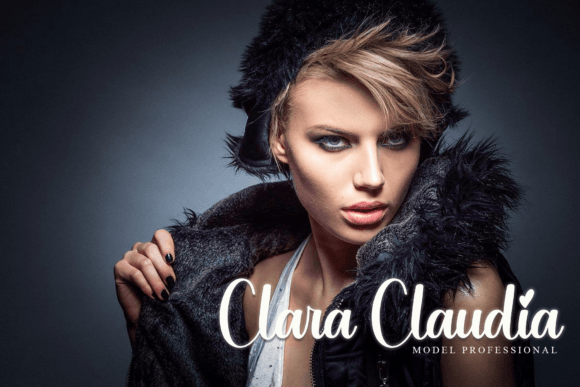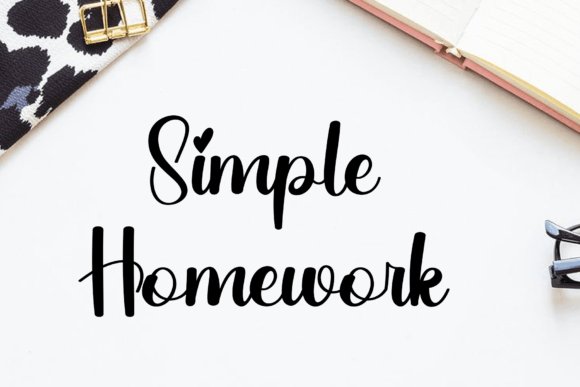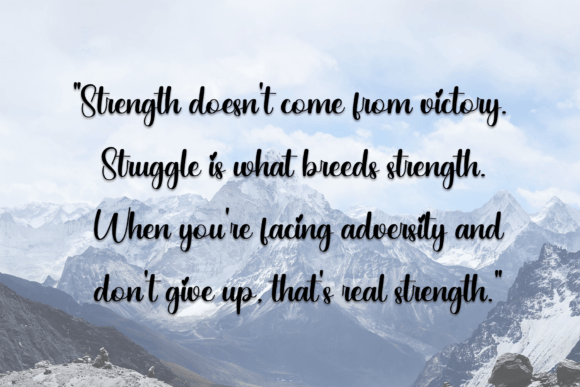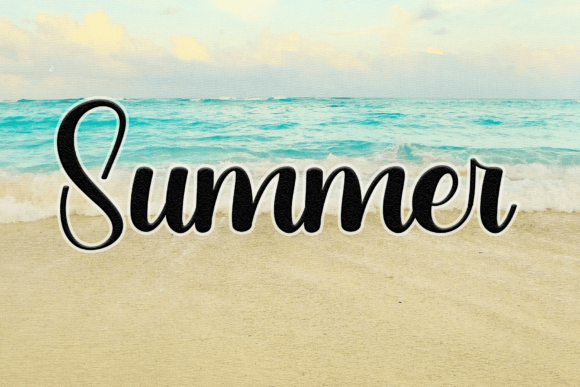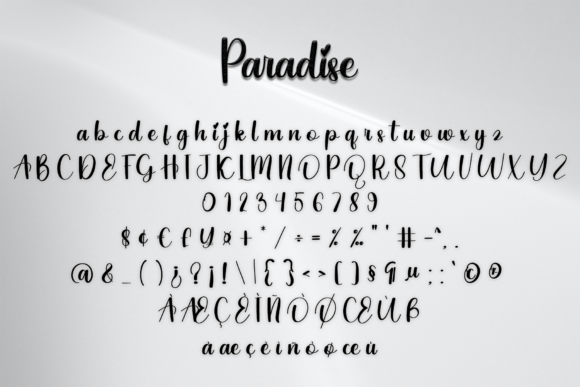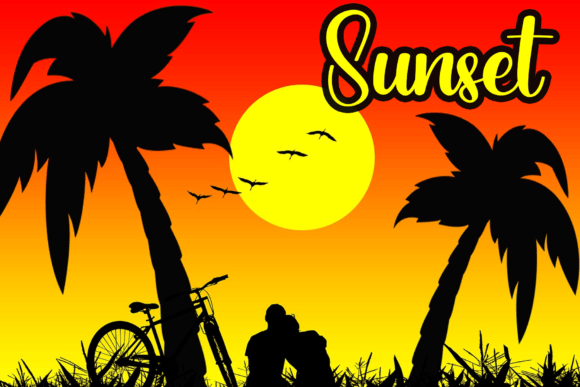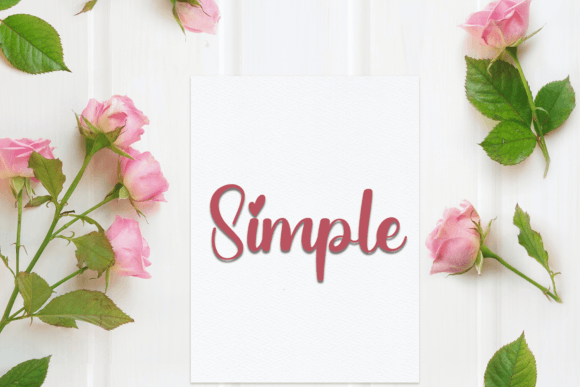
Paradise Font
About Paradise Font
“Paradise” is a distinctive, round-lettered handwritten font meticulously crafted to enhance your design projects. With its unique style, this font is versatile and suitable for writing titles, invitations, letters, and a variety of other creative products.
The round-lettered design of “Paradise” adds a touch of individuality and character to your text. Whether you’re working on invitations that require a warm and friendly vibe or titles that need a unique and eye-catching appearance, this font is designed to boost the visual appeal of your designs.
Imagine using “Paradise” on a poster where the round letters contribute to a playful and inviting atmosphere. Picture it on a greeting card, adding a personal touch to your heartfelt messages. The versatility of this font allows it to adapt to different design contexts, making it a valuable asset for a wide range of projects.
As you explore the creative possibilities with “Paradise,” let its unique, round-lettered style be the element that sets your designs apart. Whether you’re creating titles, invitations, or any other type of product, “Paradise” invites you to infuse your projects with its distinct and carefully crafted handwritten charm.